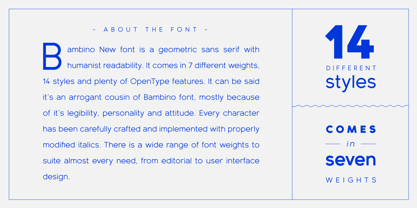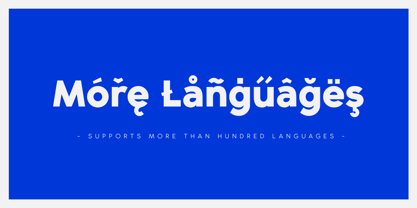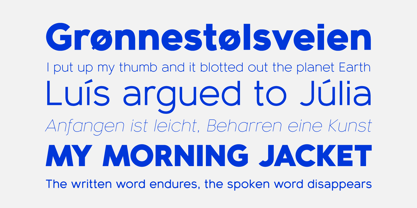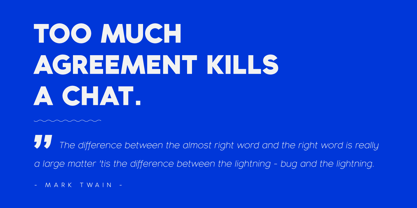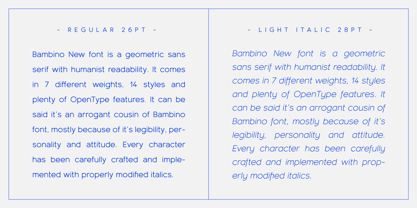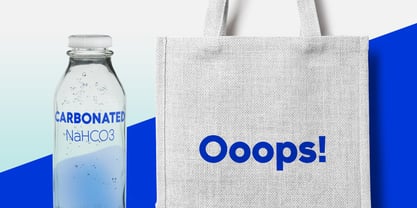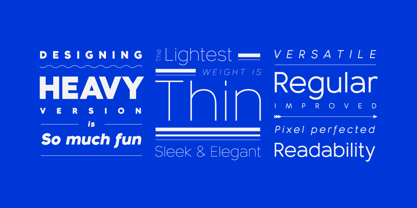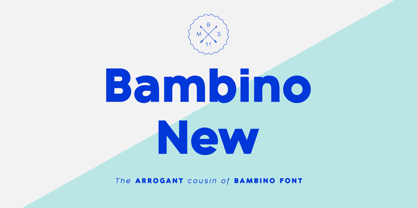
Bambino New Font
This Bambino New Font is perfect for children's book publishing, baby product packaging, nursery design projects, pediatric clinic materials, kids' clothing brands, toy store signage, family restaurant menus, daycare center communications, children's educational apps, and adorable infant merchandise designs.
What makes this Bambino New Font exciting is its innocent sweetness that captures the pure joy and tender charm of childhood wonder and baby cuteness. The font features gentle letterforms with playful characteristics that convey childlike innocence, nurturing care, and family warmth. Its tender character and child-inspired design make it ideal for brands seeking to communicate parental love, childhood happiness, and gentle care in children's and family markets.
The Bambino New Font family includes light, regular, medium, and bold weights with playful alternates, child-friendly variants, and adorable flourishes. This comprehensive family font provides designers with nurturing typographic tools to create loving compositions while maintaining the childlike character essential for children's brands and family-oriented communications.
Children's brands and family businesses consistently choose Bambino New Font Free Download for projects requiring authentic childhood appeal and family warmth. This font's distinctive innocent character perfectly captures the tender care and childhood joy that resonate with audiences who appreciate child development, family values, and brands that embody nurturing love and childhood wonder.
The nurturing construction of Bambino New Font showcases lovingly designed letterforms with child proportions that ensure exceptional sweetness across all family applications. Its gentle appearance and childlike character create memorable impressions while maintaining the readability necessary for effective children's communication and family brand materials.
Professional designers appreciate how Bambino New Font brings immediate childhood authenticity and family warmth to brand communications. The font's tender nature allows organizations to communicate parental care and childhood joy while maintaining the professional quality necessary for effective positioning in children's products and family service markets.
The heartwarming appeal of Bambino New Font makes it particularly effective for brands emphasizing childhood development, family bonding, and nurturing care. Its innocent character resonates strongly with audiences who appreciate child welfare, family traditions, and brands that represent the precious beauty of childhood and the loving bonds of family relationships.
Whether developing branding for children's educational programs or creating materials for family-oriented businesses, Bambino New Font Free Download provides the nurturing typographic foundation that family brands need to communicate their childhood care, family warmth, and the tender excellence that defines child development and loving family achievement.